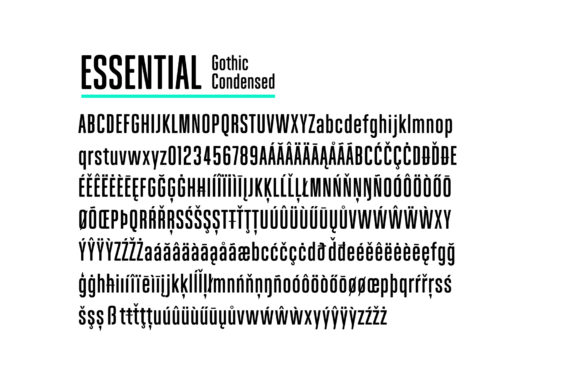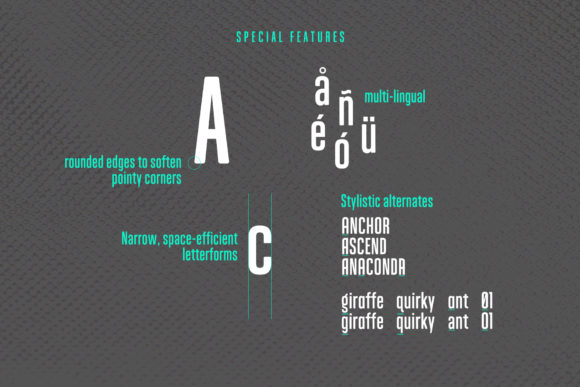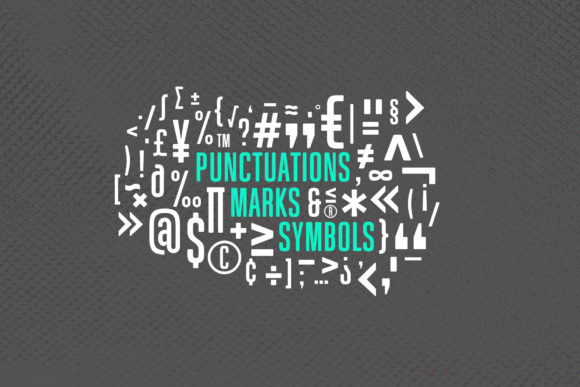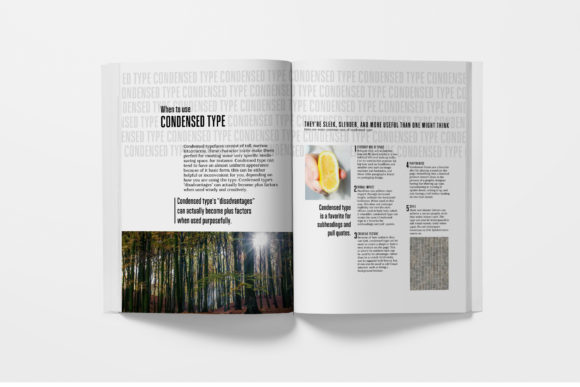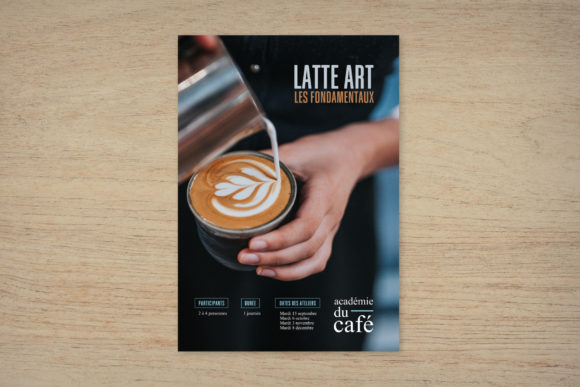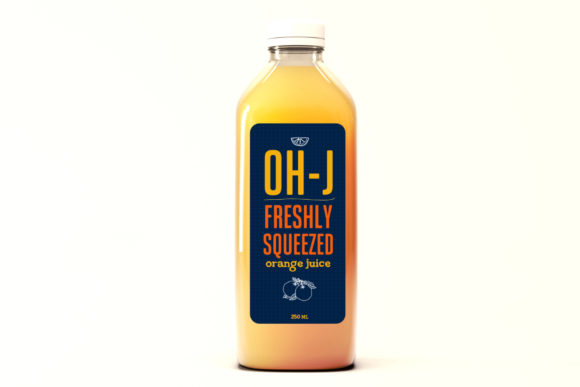
Unlock the Power of Essential Gothic Condensed Font: A Versatile Typeface for Designers
In the realm of typography, a well-chosen font can elevate a design from ordinary to extraordinary. For designers and crafters seeking a narrow display typeface that exudes versatility and efficiency, look no further than Essential Gothic Condensed. This multi-lingual font is engineered to make a statement, offering a wide range of applications that can enhance any project. Whether you’re working on a sleek website header, a compelling advertising campaign, or an eye-catching packaging design, Essential Gothic Condensed is poised to become your go-to typeface.
The Characteristics of Essential Gothic Condensed
Essential Gothic Condensed is specifically designed for headings and graphic text, where space is often at a premium. Its narrow yet elegant structure allows it to fit into tight spaces without sacrificing readability or aesthetic appeal. This makes it an ideal choice for projects where you need to convey a message quickly and effectively, without taking up too much real estate.
Multi-Lingual Support
In today’s global marketplace, the ability to communicate across languages is more important than ever. Essential Gothic Condensed rises to this challenge with its multi-lingual support. Designers can create content for diverse audiences without worrying about character limitations or the font’s adaptability. This feature not only broadens the font’s usability but also streamlines the design process, saving valuable time and resources.
Space Efficiency and Versatility
The font’s condensed design doesn’t just refer to its physical width; it’s also about the impact it can have on your design’s overall look and feel. Essential Gothic Condensed brings a level of sophistication and modernity that can instantly elevate a project’s visual hierarchy. Its versatility shines through in its adaptability across various mediums and applications, from digital platforms to print materials. Whether you’re designing a logo, a billboard, or a website header, this font can be tailored to fit your project’s specific needs.
Applications of Essential Gothic Condensed
The applications of Essential Gothic Condensed are as varied as they are vast. Here are a few scenarios where this font truly shines:
- Web Design: Use it for headings and titles to create a strong first impression.
- Advertising: Its condensed structure makes it perfect for billboards, posters, and ad banners.
- Packaging: Add a touch of modern elegance to product labels and packaging.
- Branding: Establish a strong brand identity with a custom logo or wordmark.
Why Essential Gothic Condensed is a Valuable Addition to Your Font Arsenal
Having the right tools at your disposal can significantly impact your workflow and the quality of your output. Essential Gothic Condensed is more than just a font; it’s a design solution that offers:
- Consistency: Its unique style can help maintain consistency across various projects.
- Efficiency: Reduces design time with its clear and legible structure.
- Impact: Grabs attention and communicates messages effectively.
In conclusion, Essential Gothic Condensed stands out as a premier choice for designers and crafters looking for a reliable, versatile, and impactful typeface. Its ability to convey messages clearly, efficiently, and with style makes it an indispensable tool in any designer’s arsenal. Whether you’re embarking on a new project or looking to refresh your brand’s visual identity, Essential Gothic Condensed is a font that can help you achieve your creative goals with confidence and flair.